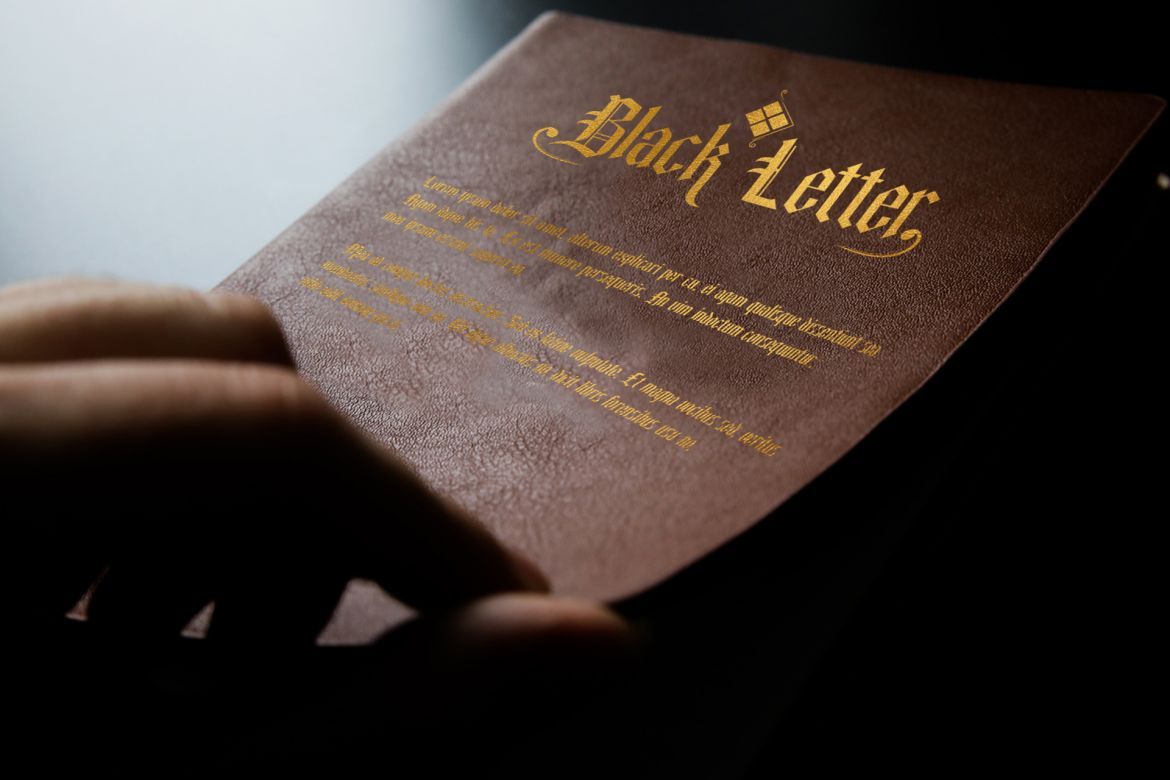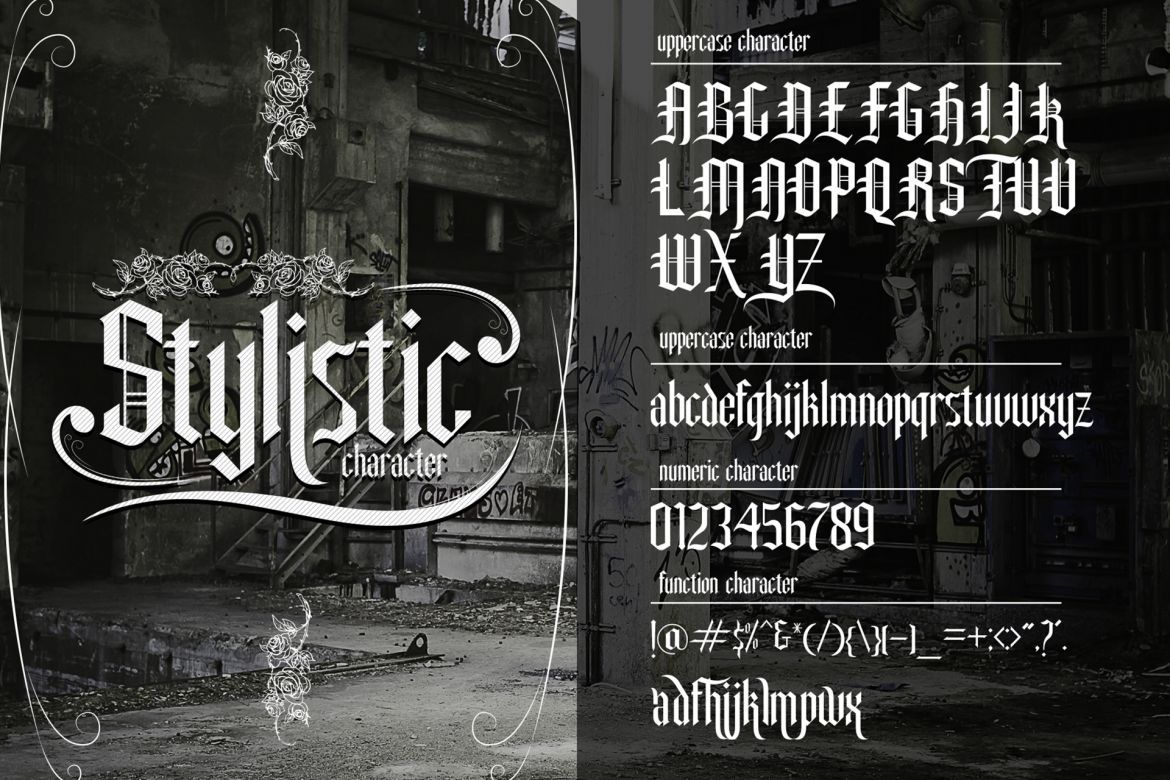
Damaskush Font
-- Elegant / Vintage / Decorative --
Damaskush font is a sans font family Inspired by vintage logo design, we try to make it more elegant and strong so it's can useful for any purpose. it's perfect for you to show your design or product in professional way.
Damaskush font is works great in any branding, logos, magazines, films, poster, flyer, sign board, magazine,etc
• clear hand drawing
• perfect for logo design and poster or banner with a vintage style
• unique style